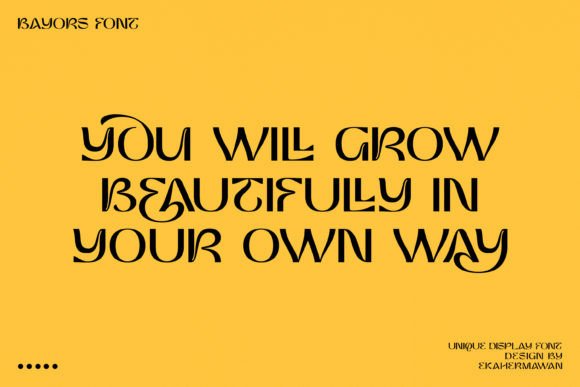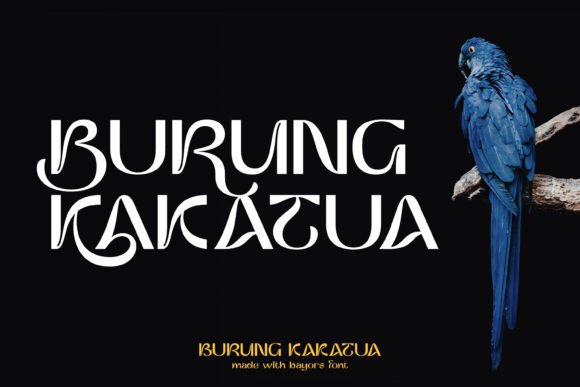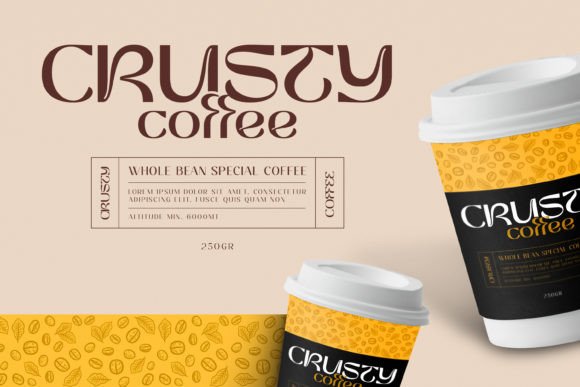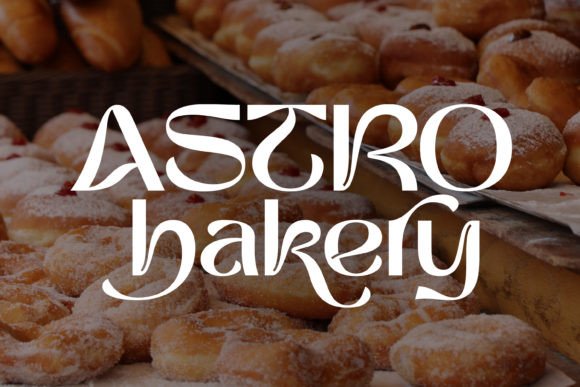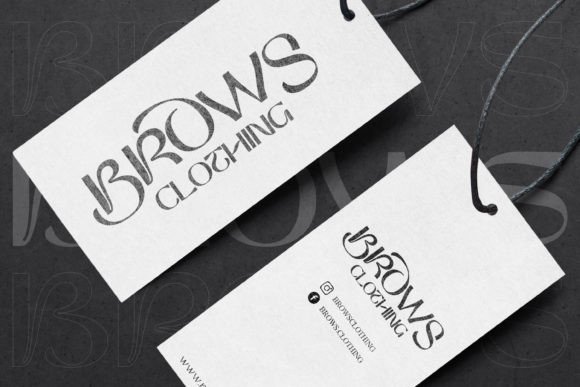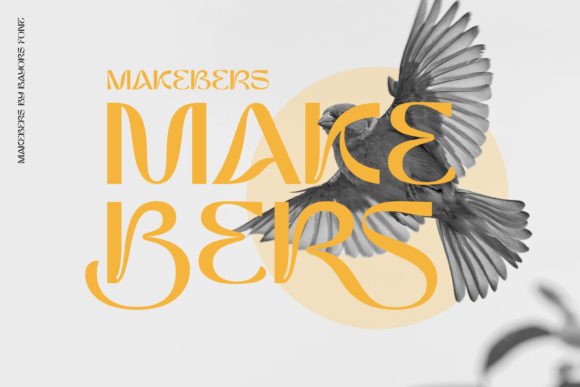
The Perfect Font for Unconventional Designs
Remember that moment when you stared at a blank canvas, struggling to find the perfect font to bring your design to life? It’s like trying to find the missing piece of a puzzle – frustrating, yet exciting at the same time. But what if I told you that you’ve just stumbled upon the perfect solution?
Meet Bayors Font, a unique display font that’s designed to make your designs stand out from the crowd. With its quirky charm and versatility, Bayors Font is the ultimate tool for designers who want to add a touch of personality to their projects. Whether you’re working on a logo design, poster, or magazine spread, Bayors Font is the perfect companion to elevate your creative vision.
With its extensive range of alternative characters, ligatures, and multilingual support, Bayors Font is a valuable addition to any designer’s toolkit. So why settle for ordinary when you can have extraordinary with Bayors Font?
Bayors Font Key Features
- Font Family: Bayors Font is a sans-serif font family.
- Character Count: The font family includes over 500 characters, including Latin, Cyrillic, and Greek alphabets.
- Unique Characteristics: Bayors Font features a unique blend of modern and minimalist design elements, with clean lines and a subtle flair.
Bayors Font Review
As a designer, I was initially drawn to Bayors Font due to its unique, elegant aesthetic ✨. The font’s clean lines and subtle flair make it perfect for creating a sophisticated and modern look. I particularly appreciate how well it pairs with a range of color schemes, from minimalist whites to rich, bold hues.
- Unique, elegant design ✨
- Perfect for modern and sophisticated projects
- Works well with various color schemes
- High-quality digital renderings
However, I do have a few concerns ⚠️. The font’s thin lines can sometimes make it difficult to read, especially at smaller font sizes. Additionally, I’ve noticed that the font’s weight can become inconsistent when used extensively in large blocks of text.
- Thin lines can make text difficult to read at smaller sizes ⚠️
- Inconsistent weight in large blocks of text ⚠️
Overall, I believe Bayors Font is a solid choice for designers looking to create a modern and sophisticated look. While it may have some limitations, its unique design and high-quality digital renderings make it a worthwhile investment for the right projects.
Bayors Font is ideal for:
- Custom typography projects
- Unique design elements
Alternatives to Bayors Font for Designers